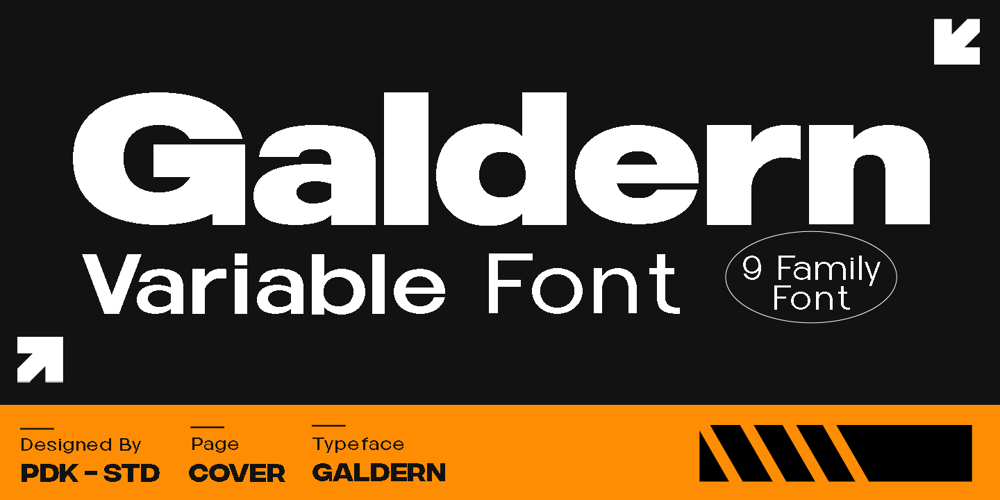
Galdern Font Family was designed by Sagara Nararya and published by Pandeka Studio. Galdern contains 9 styles and family package options. Galdern is a geometric sans serif font family with unique characters for a touch of distinction. Simple yet sophisticated, this typeface design gives a clean and modern appearance while carrying some almost retro tones.There are also stylistic alternates to help give a little different presentation when needed.Features Galdern Main Files Variable family with 9 fonts Instructions (Access special characters in all apps, even in Cricut Design) Accessible in Adobe Illustrator, Adobe Photoshop, Microsoft Word even Canva! PUA Encoded Characters. Fully accessible without additional design software Feel free to follow, like and share. Thanks so much for checking out my shop!Pandeka Studio